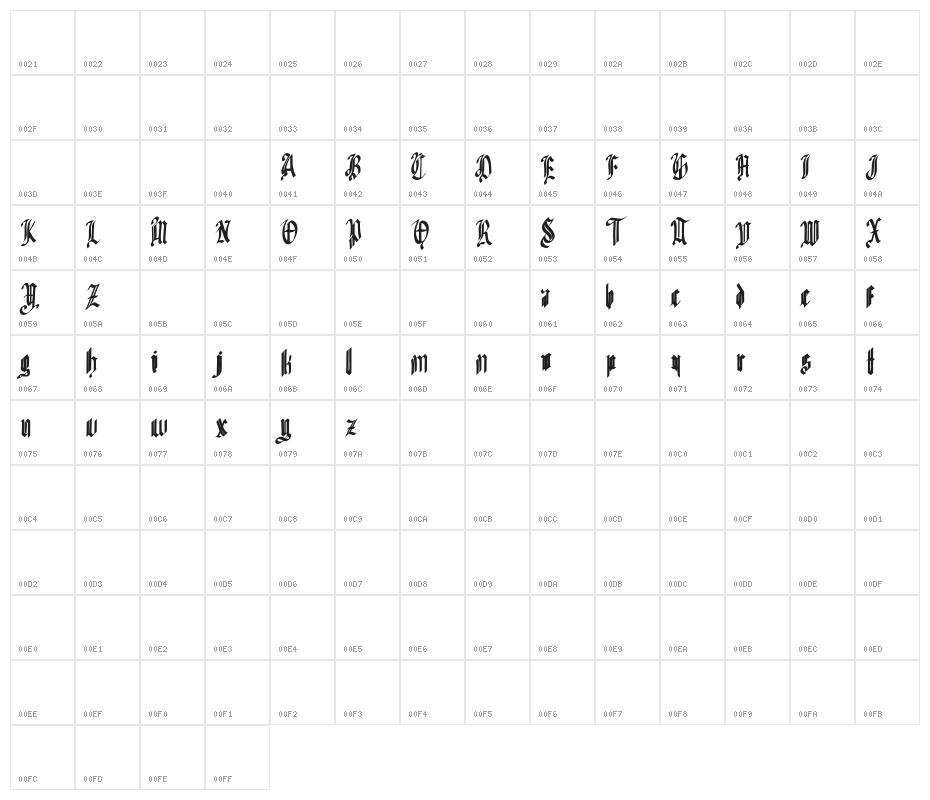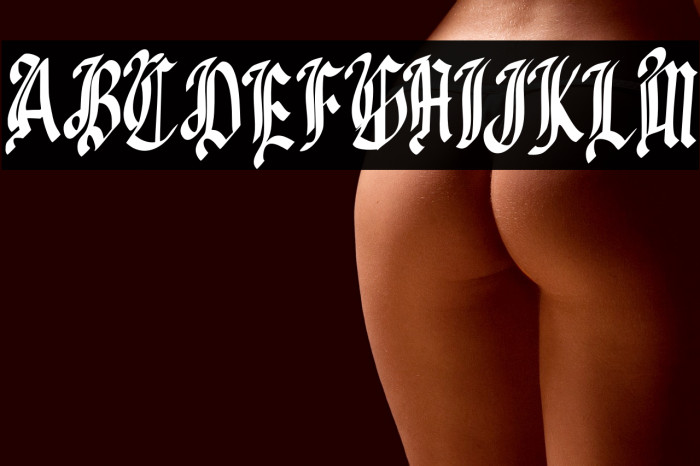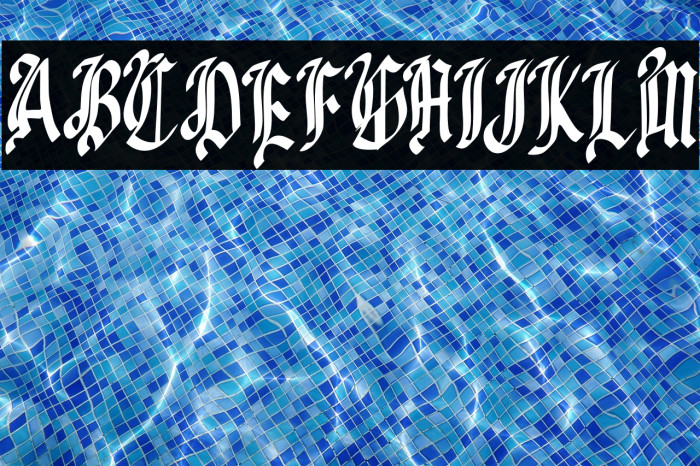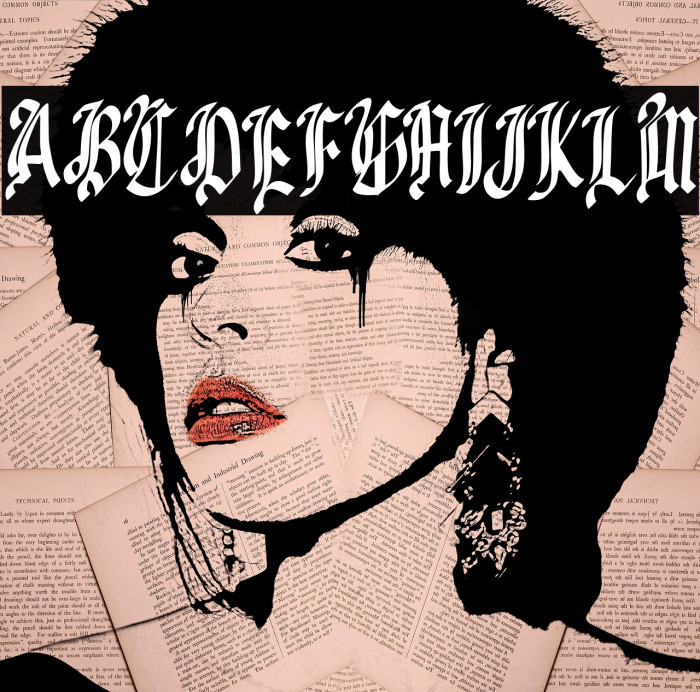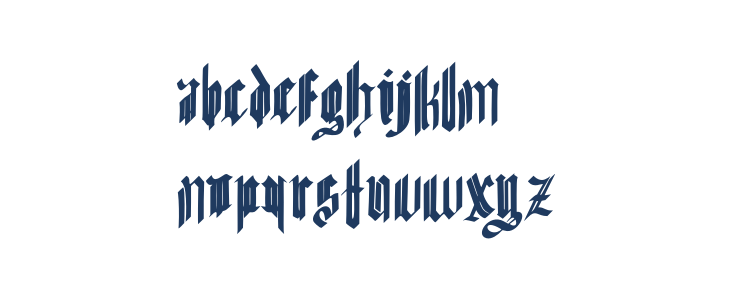
DagoseFREE Font
DagoseFREE Description
This font exhibits a classic blackletter style, characterized by its intricate and ornate design. The letters are bold and angular, with sharp edges and dramatic flourishes that give it a distinct medieval appearance. The uppercase letters are particularly elaborate, featuring exaggerated serifs and decorative elements that enhance their gothic aesthetic. The lowercase letters maintain the same stylistic elements but are slightly more restrained, providing a balanced contrast. The numbers and special characters follow the same design principles, ensuring consistency across the entire typeface.
| Use Case | Headlines, Logos, Decorative text |
| Proposed Projects | Ideal for projects requiring a historical or gothic theme, such as book covers, posters, or branding for vintage-themed events. |